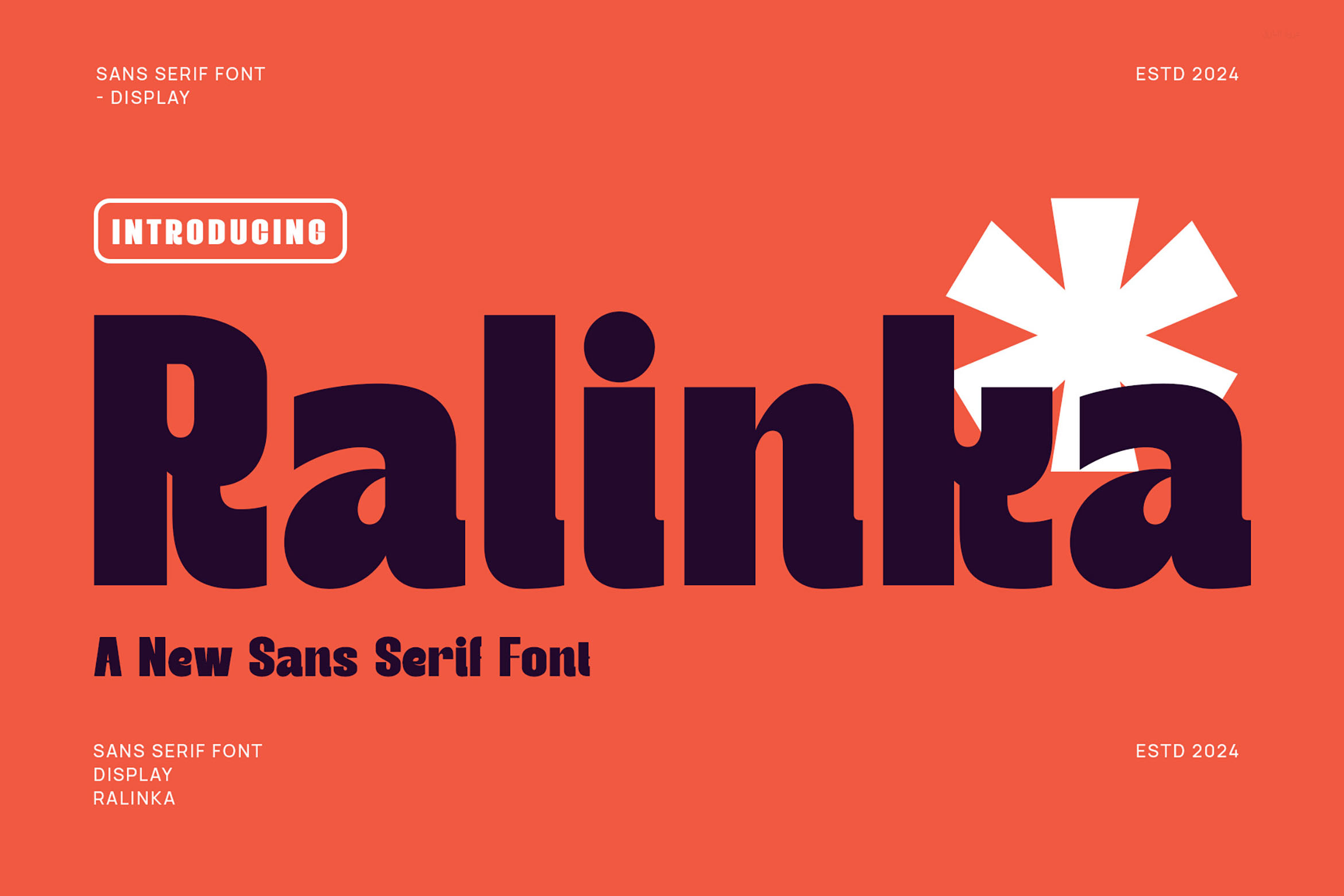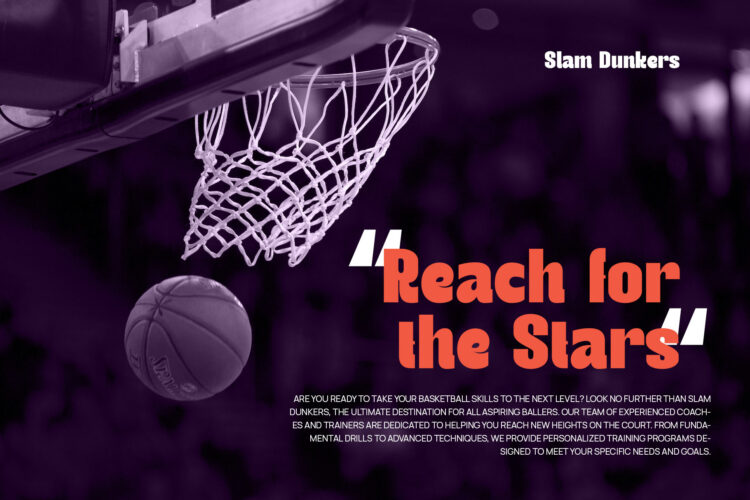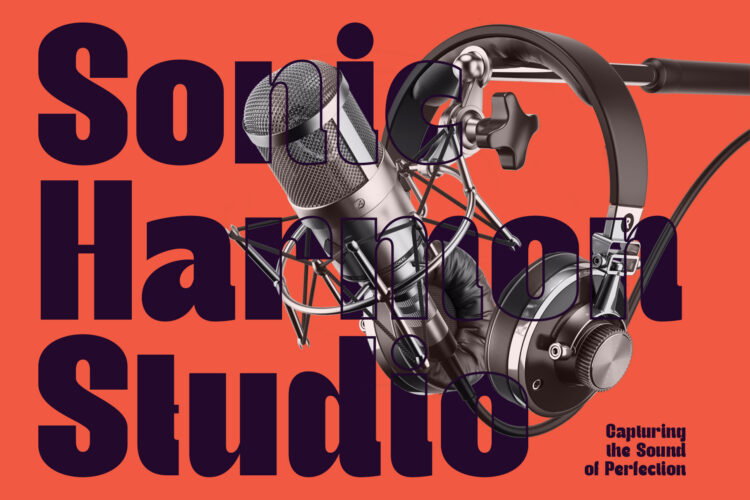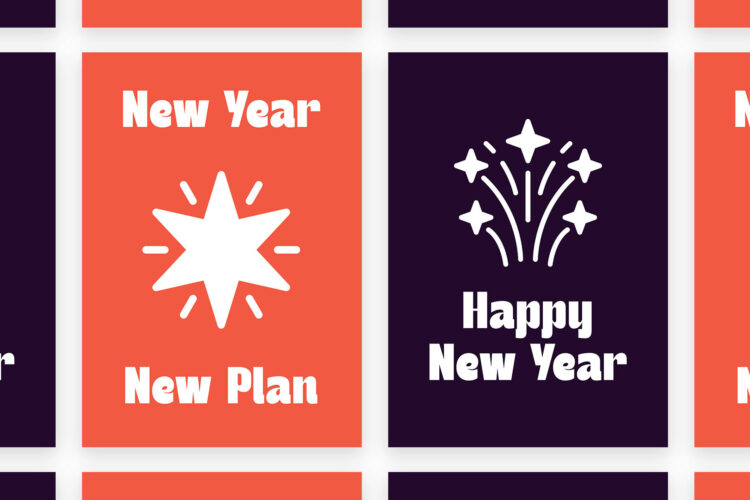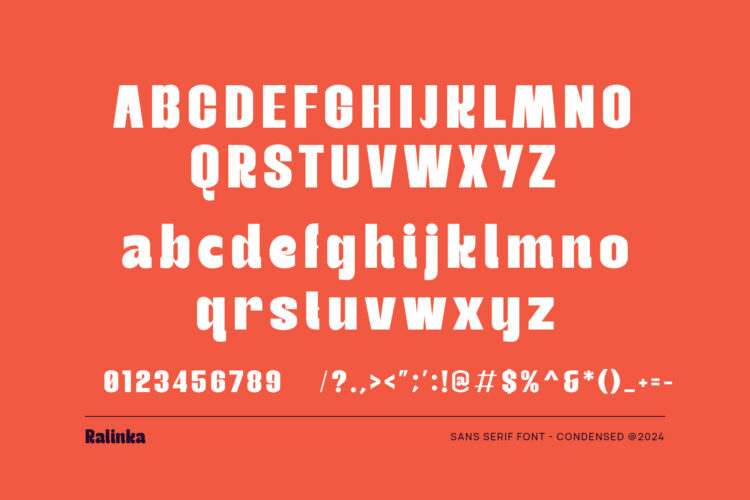
Introducing our new Ralinka, modern sans serif font with elegant style this is perfect for branding, logos, invitation, magazines, product packaging and more.
Ralinka – Modern Display Sans Serif